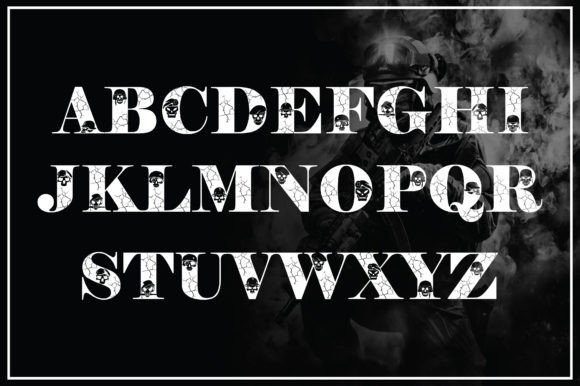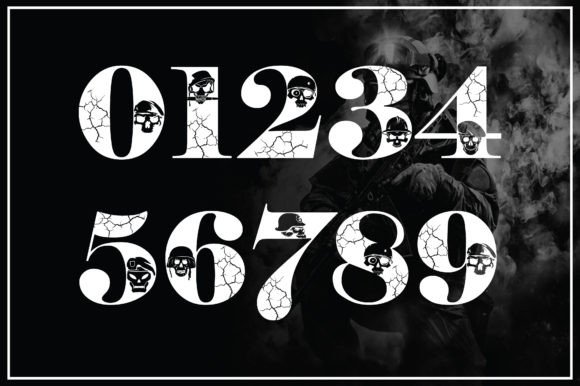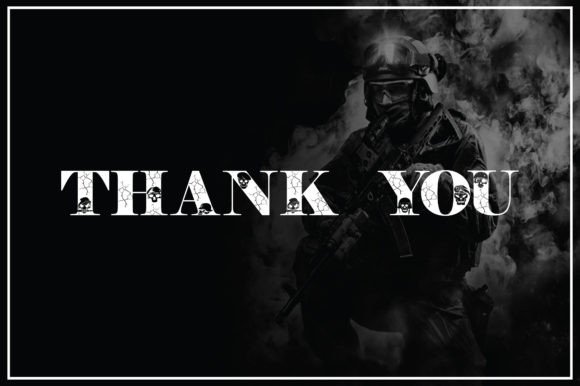
Unleash Your Creativity with Army Skull Font: A Dramatic Decorative Font
Are you a designer or crafter looking for a unique and eye-catching font to add a touch of drama to your projects? Look no further than the Army Skull Font! This decorative font is perfect for anyone who wants to make a bold statement and add a bit of edginess to their designs.
What is Army Skull Font?
Army Skull Font is a dramatic decorative font that features intricate skull designs and bold typography. The font is inspired by military and vintage designs, giving it a rugged and edgy feel. The skull motif adds a touch of rebellion and boldness, making it perfect for designs that require a bit of attitude.
What Makes Army Skull Font So Special?
Army Skull Font is a versatile font that can be used for a wide range of design projects. Here are just a few reasons why it’s so special:
• Unique Design: The Army Skull Font features a unique and intricate design that sets it apart from other fonts. The skull motif is expertly woven into the typography, creating a bold and eye-catching effect.
• Highly Versatile: Army Skull Font can be used for a wide range of design projects, from logos and branding to t-shirts and other crafty projects.
• Easily Customizable: The font is highly customizable, allowing you to adjust the size, color, and style to fit your design needs.
How to Use Army Skull Font in Your Designs
Army Skull Font is perfect for a wide range of design projects, including:
• Logos and Branding: Add a touch of drama and edginess to your logos and branding with Army Skull Font.
• T-Shirts and Apparel: Create bold and eye-catching t-shirt designs with Army Skull Font.
• Posters and Flyers: Use Army Skull Font to create striking posters and flyers that grab attention.
• Crafting and DIY Projects: Add a touch of personality to your crafting and DIY projects, such as scrapbooking, card making, and woodworking.
Why Designers and Crafters Love Army Skull Font
Designers and crafters love Army Skull Font for its unique and versatile design. Here are just a few reasons why:
• Adds a Touch of Drama: Army Skull Font adds a touch of drama and edginess to any design project.
• Easy to Use: The font is easy to use and customize, making it perfect for designers and crafters of all skill levels.
• Perfect for Statement Pieces: Army Skull Font is perfect for creating statement pieces that grab attention and make a bold statement.